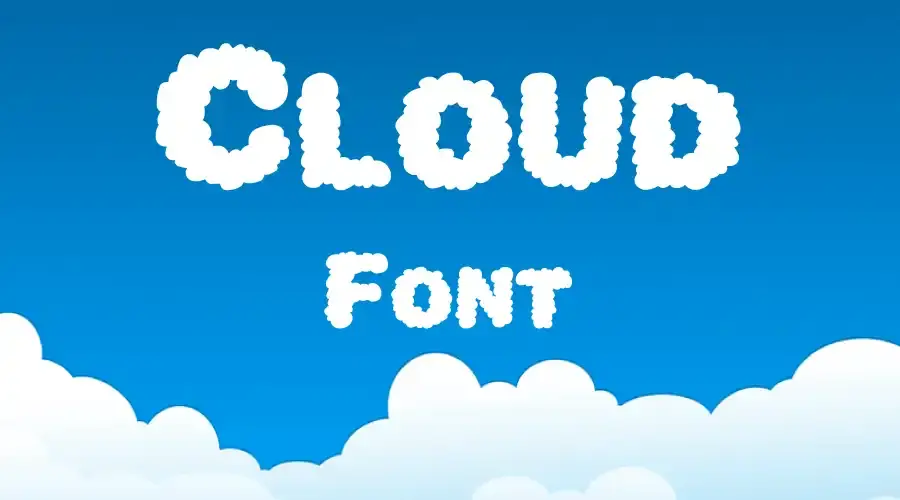
Do you like clouds? Do you want to use them in your graphic designs? Then Cloud font might interest you! Because it features cloud-like shapes and swirls. This fun and whimsical font can add flair and personality to your text. In this article, we will explore the history and features of the Alpha Cloud font, how to use a font generator to create your text and graphics, some similar fonts to check out, and some tips on using it effectively.
About Cloud Font
This font is a display font suitable for logos, headlines, titles, posters, banners, and other graphic design projects that need a playful and creative touch. It has uppercase letters, lowercase letters, punctuation marks, and diacritical letters. It also has some ligatures and alternates that you can use to customize your text.
The Alpha Cloud font is versatile and can be used for various themes and occasions. You can use it to create text graphics related to nature, weather, the sky, dreams, fantasy, magic, children, fun, and more.
Similar cloud fonts
If you like the font, you might also like other fonts with a similar style or vibe. Here are some font suggestions:
• Cloudy – This is another decorative one featuring cloud-like shapes and swirls. Woodcutter created it in 2017.
• Cloudy Day – This handwritten script font has a smooth and elegant appearance. Misti’s Fonts created it in 2016.
• Cloudy Sky is a brush script font with a rough and edgy look. It has a lot of texture and detail that can give your designs a grunge or vintage effect.